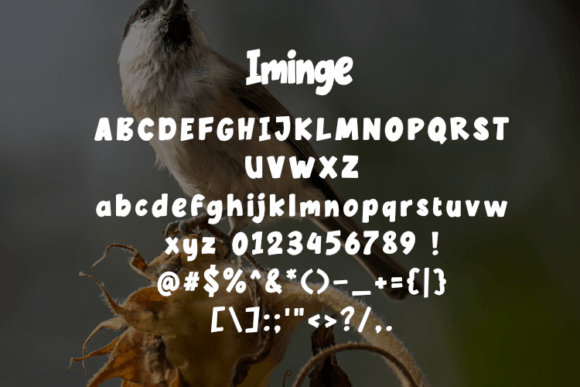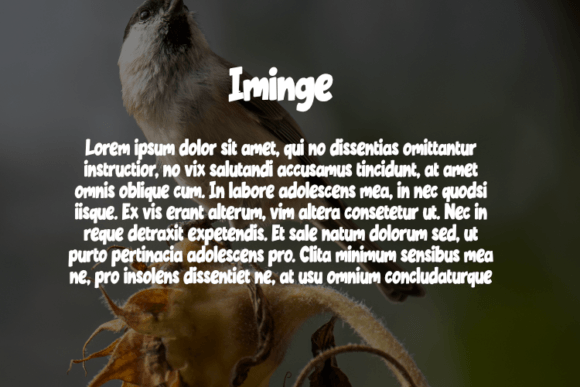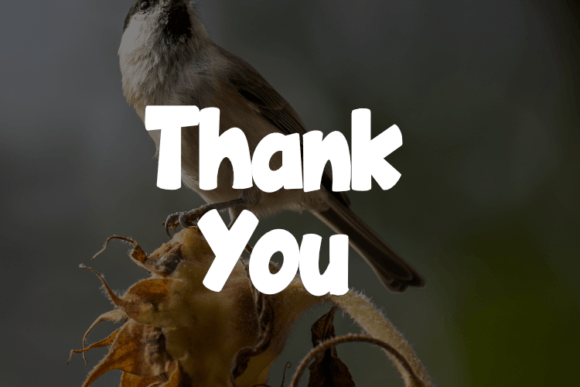
Introduction to Iminge Font
Breathe life into your apparel and merchandise designs with Iminge.
This versatile font lends itself beautifully to all types of designs and platforms Each character in Iminge tells a story, adding a unique edge to t-shirts, clothing, and various products.
Key Features of Iminge Font
Why Choose Iminge Font?
Iminge Font offers exceptional quality and versatility, making it a valuable addition to your design toolkit. Whether you’re creating for personal projects or commercial use, Iminge Font delivers professional results.